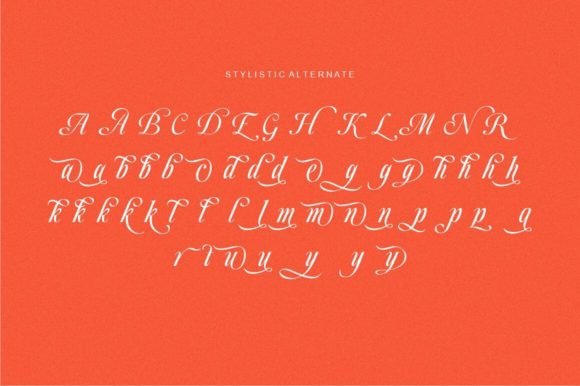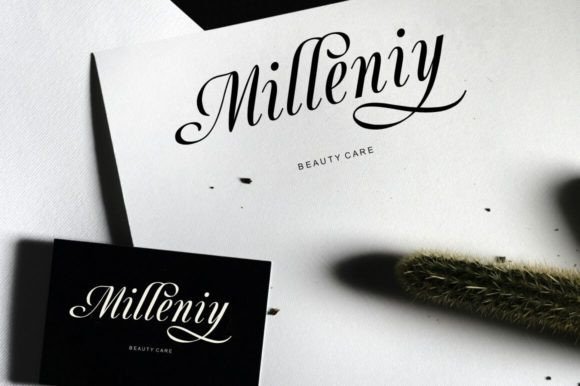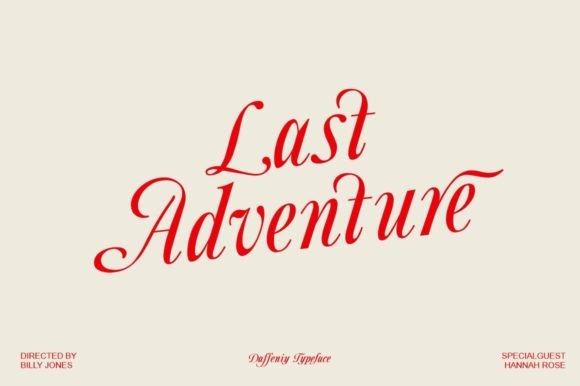
Introduction to Daffeniy Font
Imagine you’re flipping through a luxurious fashion magazine, and you come across a beautiful, elegant headline that catches your eye. The words seem to dance on the page, with each letter perfectly curved and flowing into the next. This is the kind of typography that stops you in your tracks and makes you take notice. For designers, finding the perfect font to elevate their creative project can be a game-changer. That’s why we’re excited to introduce you to the Daffeniy Font, an authentic italic calligraphy font that’s sure to make your designs shine with luxury.
The Daffeniy Font is a high-quality design resource that’s perfect for creating beautiful, feminine designs. With its transparent background and beautiful flow characters, it’s a must-have for any designer looking to add a touch of elegance to their work. Whether you’re creating logos, signage, or invitations, this font is sure to make a lasting impression.
Key Features of Daffeniy Font
- High-quality font with a unique, modern design perfect for creative projects
- Transparent background for seamless integration with any design resource
- Supports a wide range of languages, making it a versatile design resource
- Designed to be highly legible, even at small font sizes, ideal for digital and print projects
- Perfect for use in logos, branding, and other creative projects requiring a unique and modern font
Honest Review: Daffeniy Font
I recently had the chance to work with the Daffeniy Font, and I must say it’s a great addition to any design resource library. This high-quality font is perfect for any creative project that requires a touch of elegance and sophistication.
- High-quality design with smooth lines and curves ✨
- Transparent background for easy customization ✨
- Only available in a limited number of font styles ⚠️
- Not ideal for very large font sizes ⚠️
Overall, I’m impressed with the Daffeniy Font and would highly recommend it to designers looking for a high-quality, free design resource. While it has some limitations, the benefits far outweigh the drawbacks, making it a valuable addition to any design library.
Tips for Getting the Most Out of Daffeniy Font
Experiment with different font sizes and colors to create visually appealing text effects. Also, consider combining the Daffeniy Font with other design elements, such as images and shapes, to add depth and interest to your designs.
The Daffeniy Font is perfect for a variety of creative projects, including social media graphics, presentations, and documents. Its high-quality design and transparent background make it an ideal choice for designers and non-designers alike.